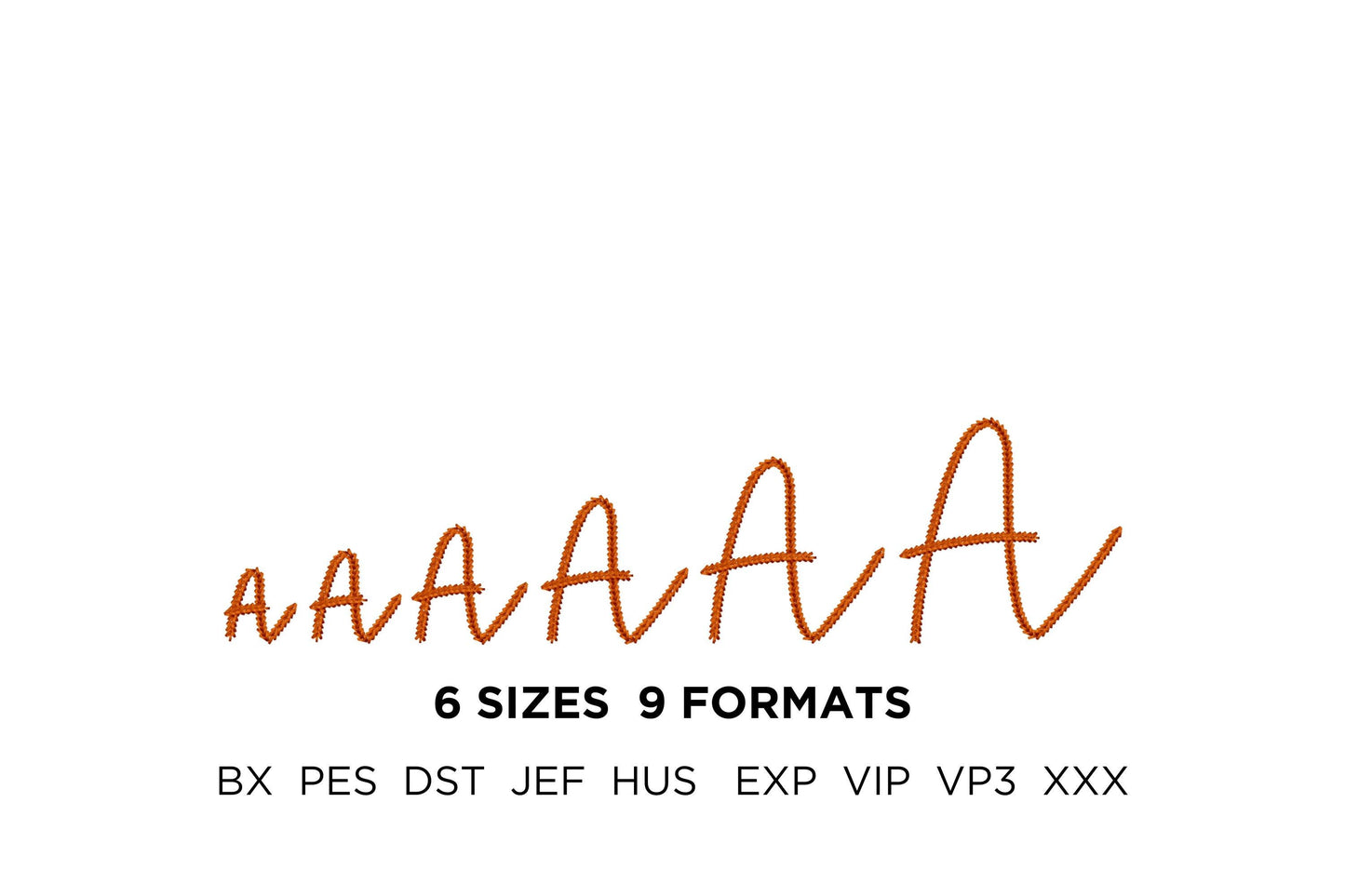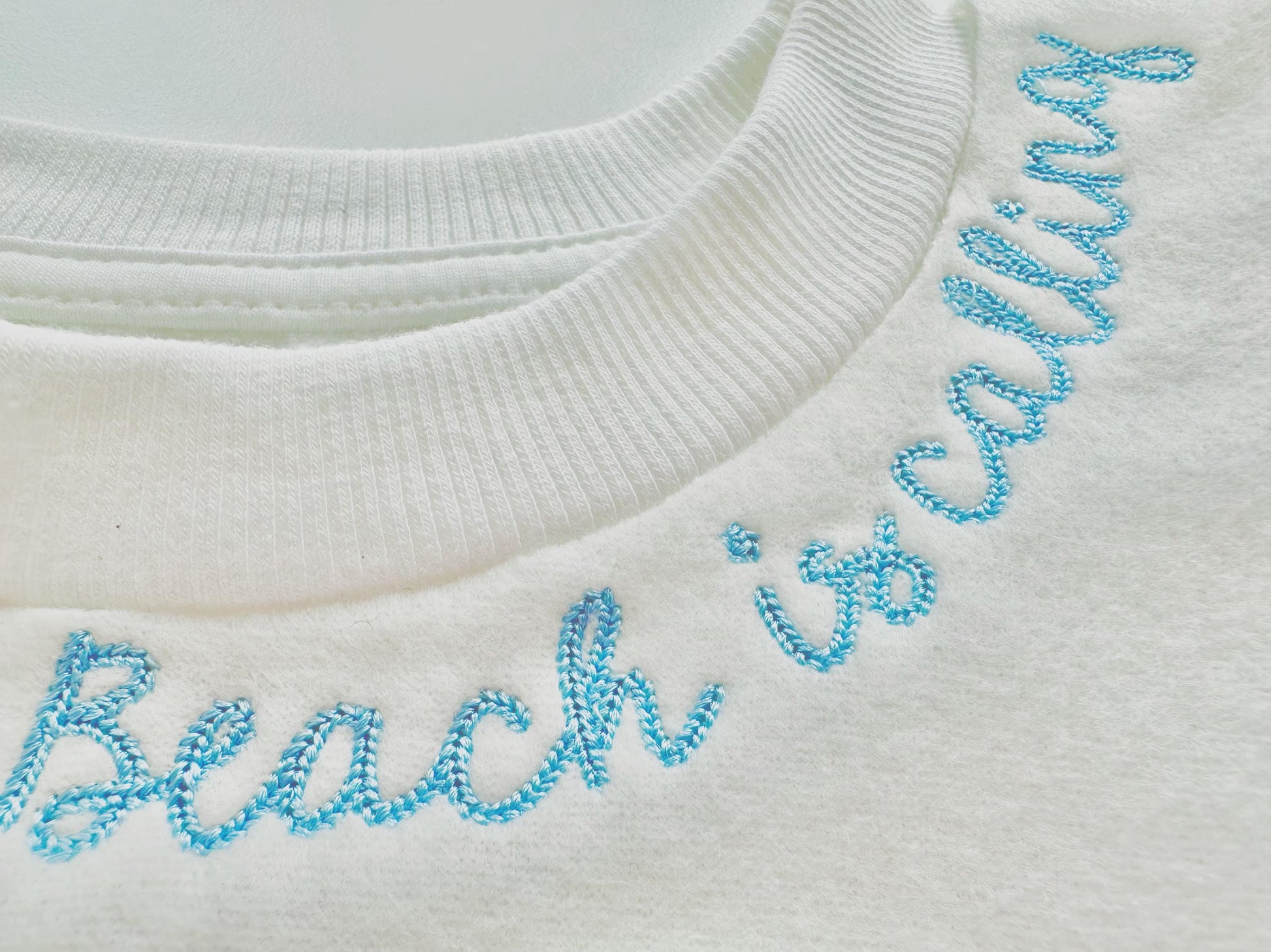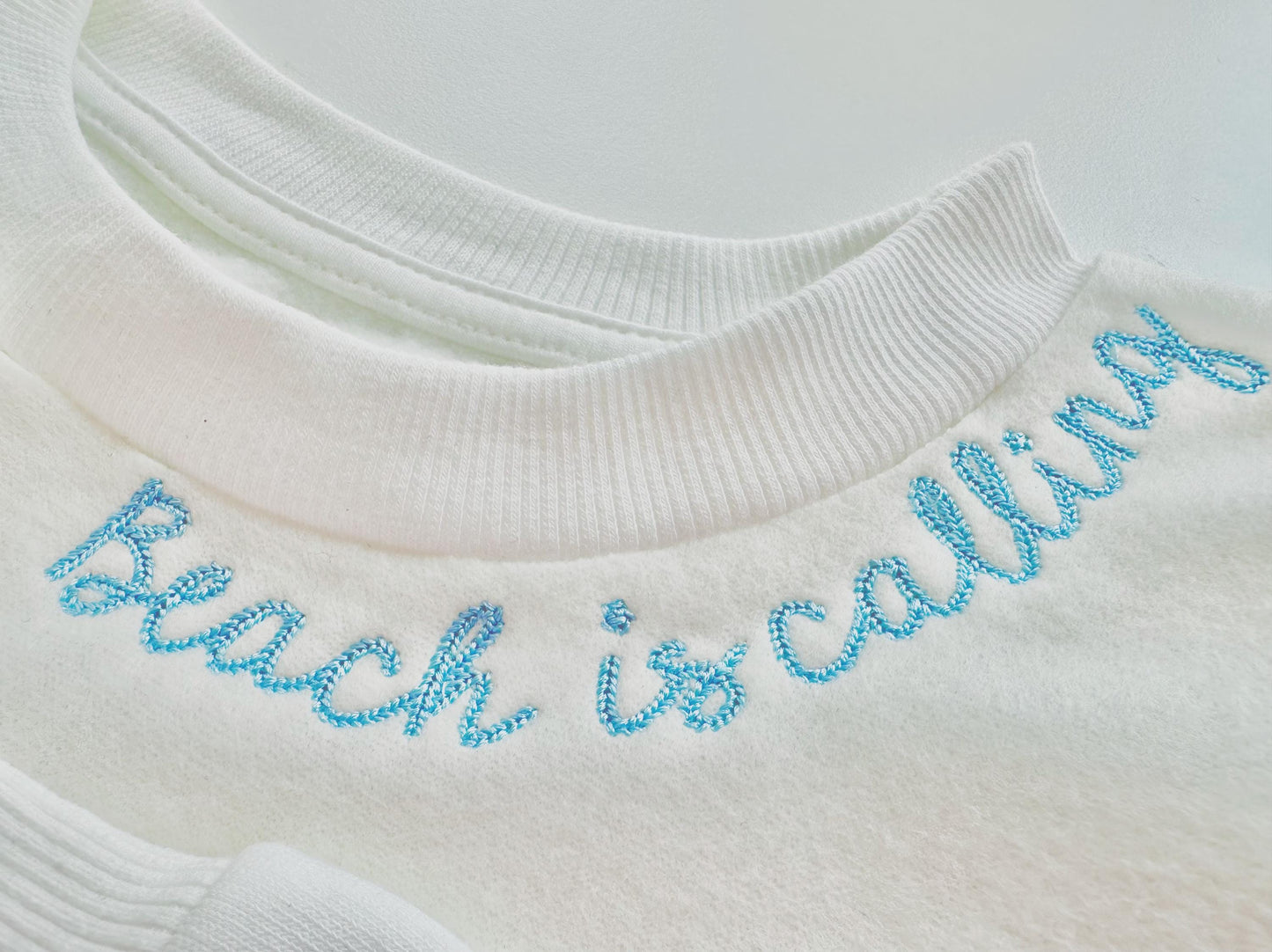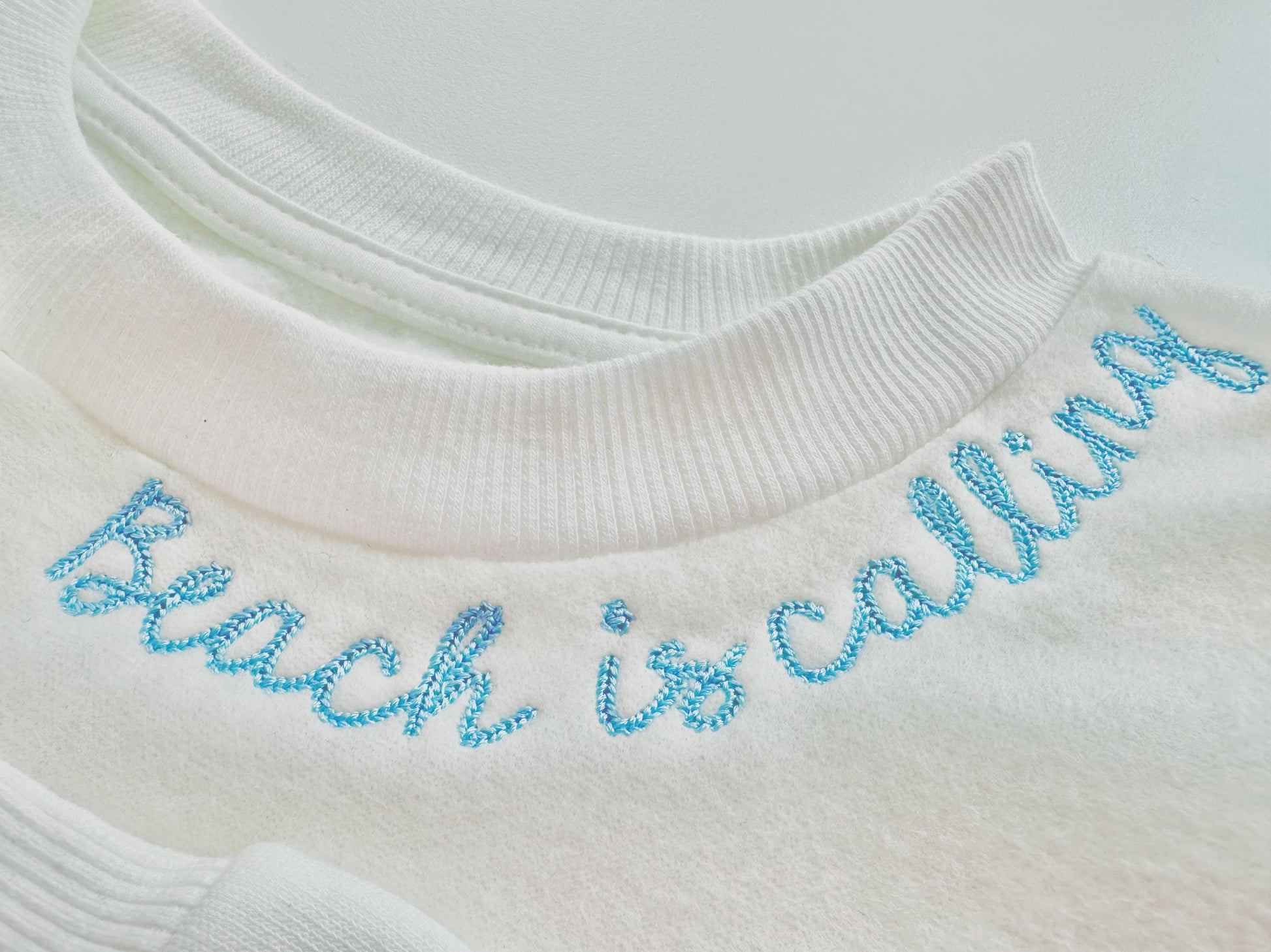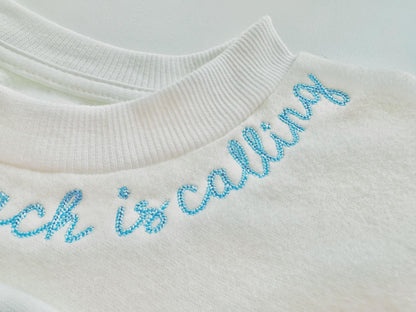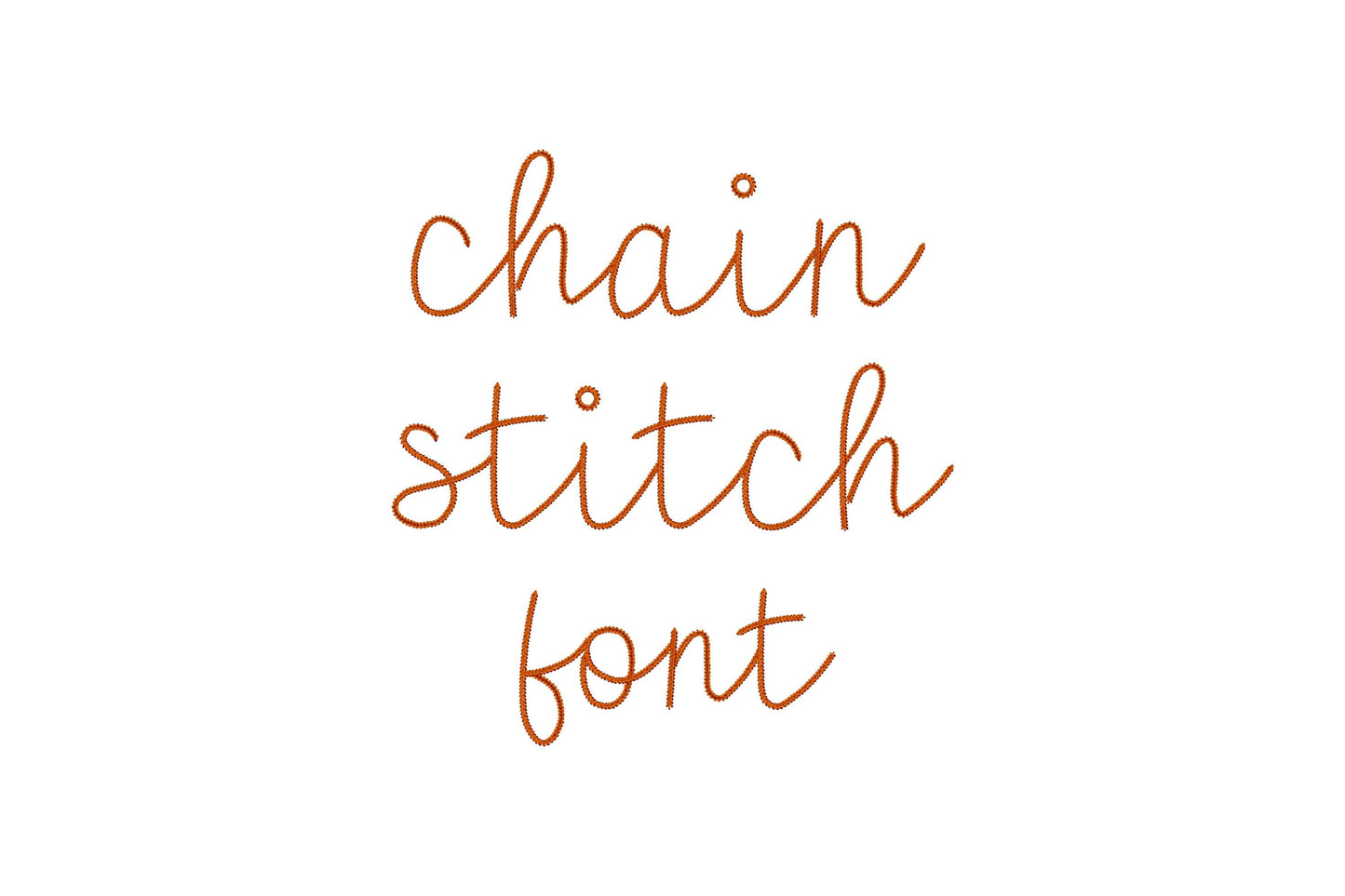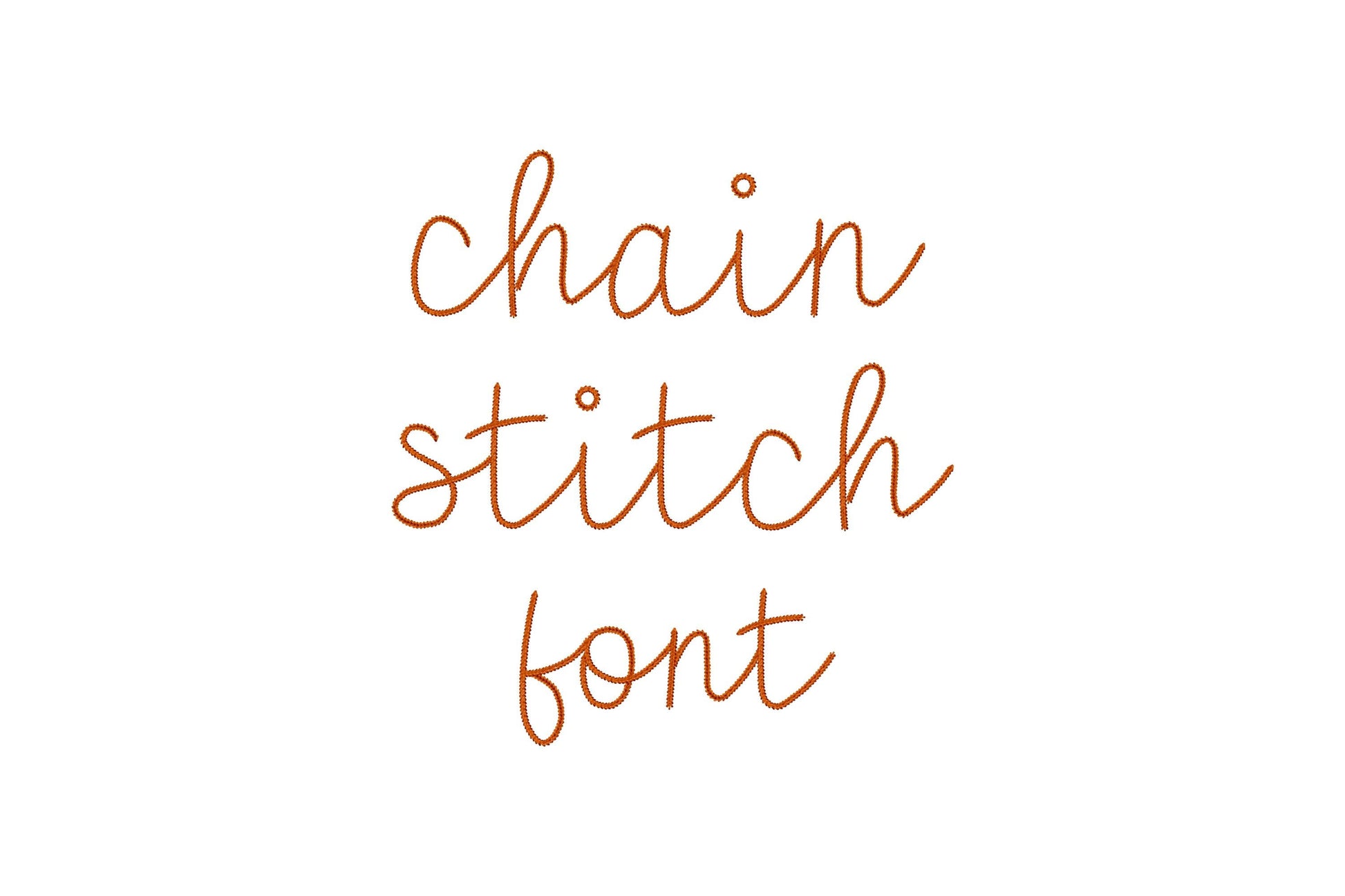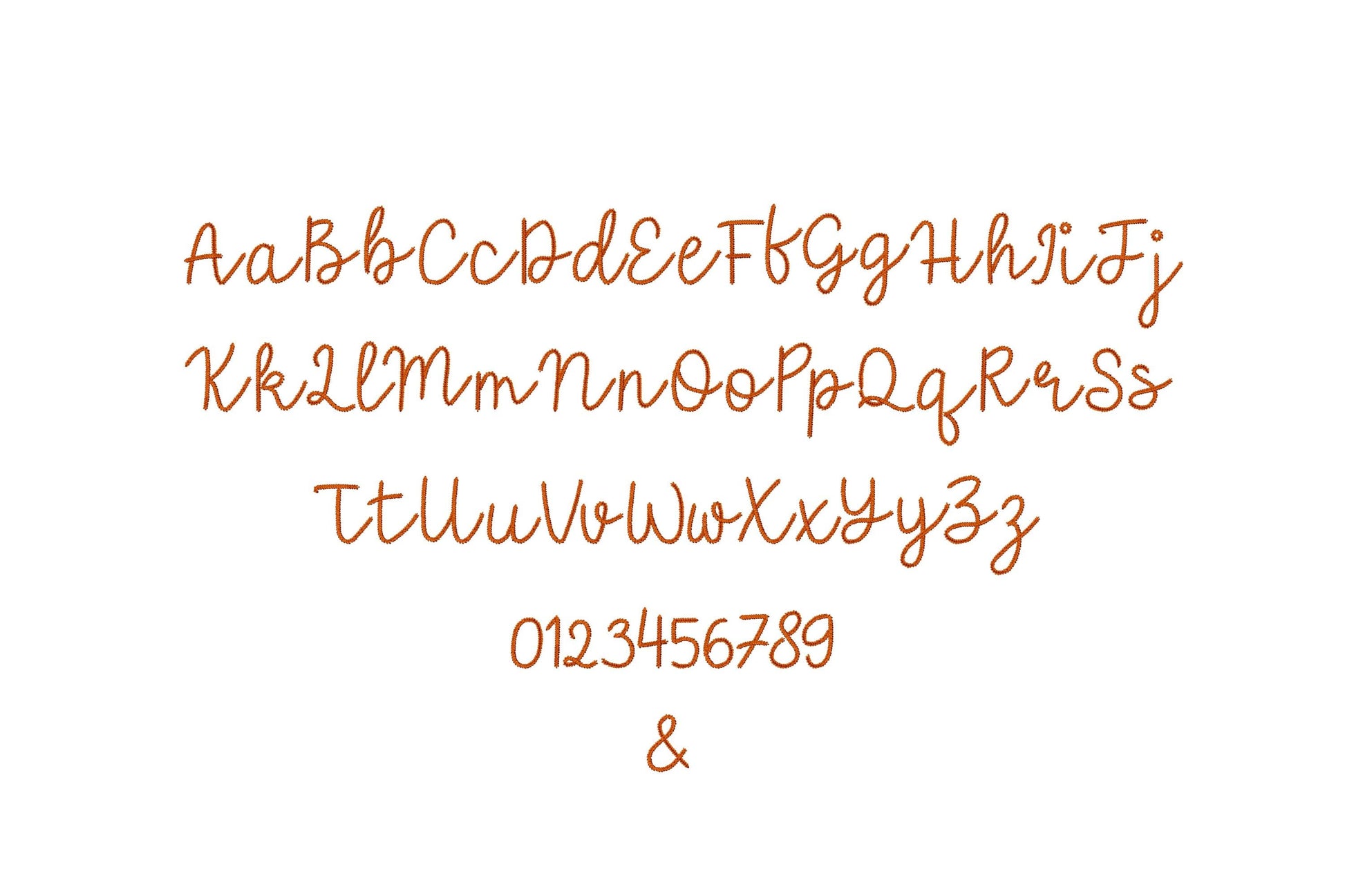
Or click to open the linkA tiny handwritten chain stitch script for small lettering. Made for necklines, cuffs, pockets, kids' names and little gifts.
Uppercase and lowercase letters, numbers 0 to 9 and an ampersand. Six mini sizes: 0.6, 0.8, 1, 1.3, 1.6 and 2 inches.